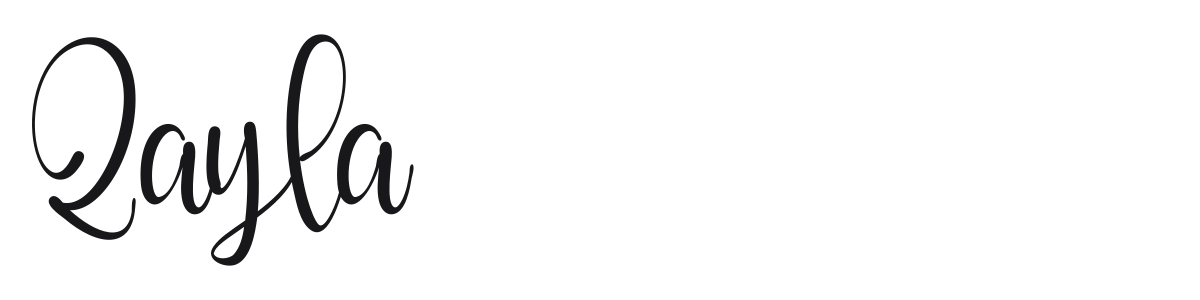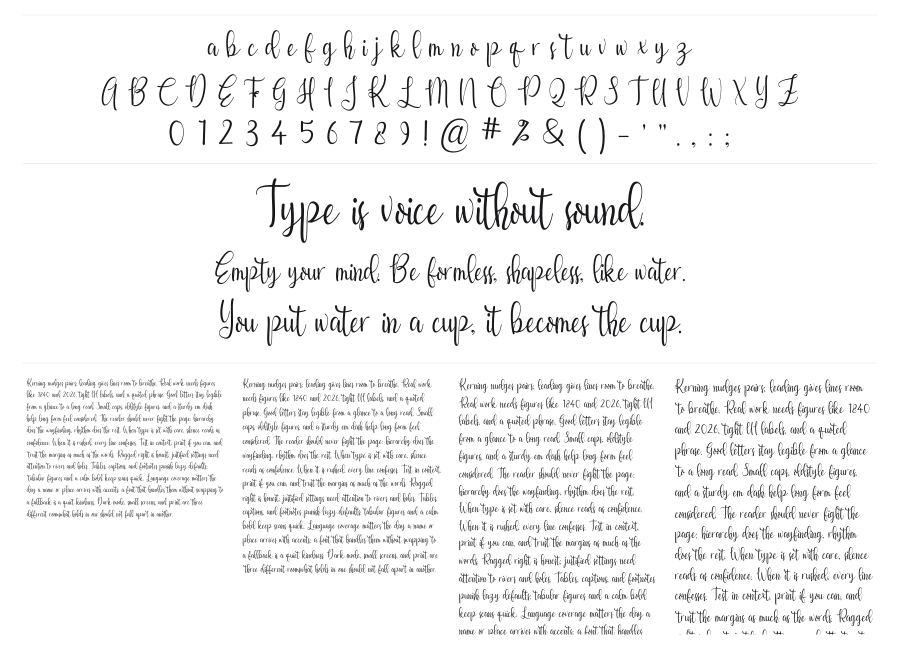
Qayla
Qayla is a bouncy casual script with sweeping loops and a lively, hand-lettered rhythm. The flowing connected strokes and dancing baseline give it a warm, celebratory energy that reads naturally at large sizes. It fits naturally in wedding stationery, packaging, and lifestyle branding.